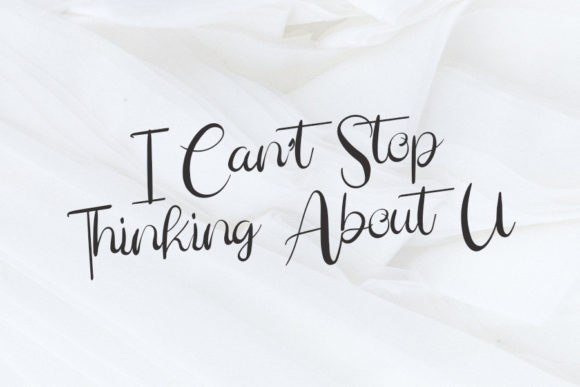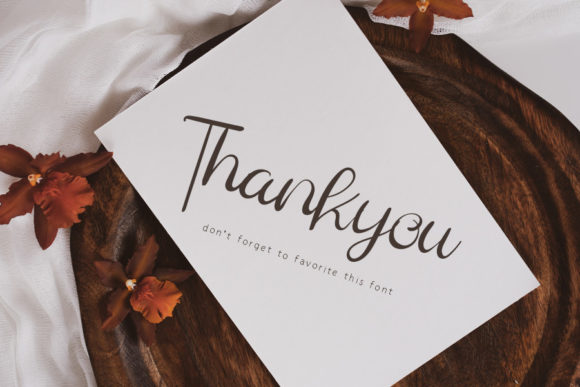
Mahatmya Font
About Mahatmya Font
Mahatmya is a lovely and delicate script font that exudes elegance and class. This font was particularly crafted for those who need a beautiful and refreshing look to their designs.